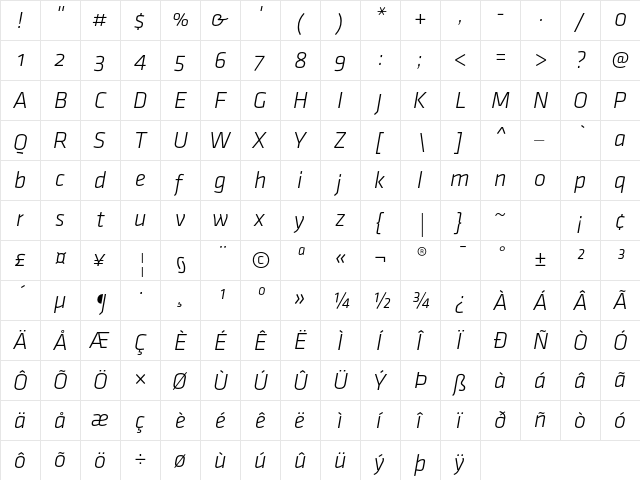
Klavika Light Light Italic Font Preview
Klavika Light Light Italic
Design Context for Klavika Light Typeface
Klavika Light offers clean, dependable letterforms without strong stylistic allegiance, making it a practical choice for designers who need flexibility. The slanted form adds forward momentum and visual energy. The delicate stroke weight brings airiness and refinement to layouts.
Pro Tip: Use Klavika Light for emphasis, pull quotes, and subheadings where its slanted energy can add rhythm to the layout.